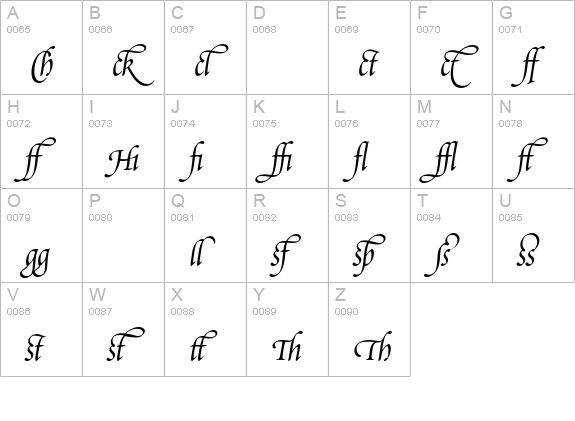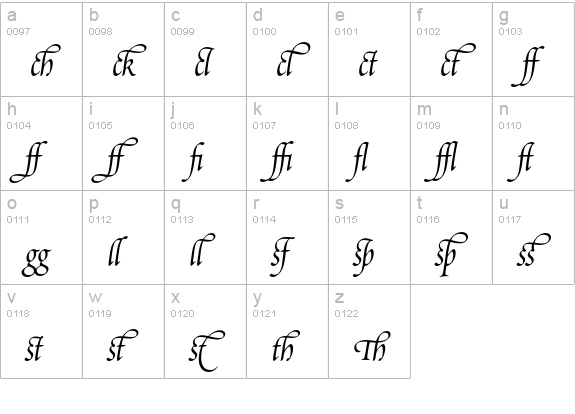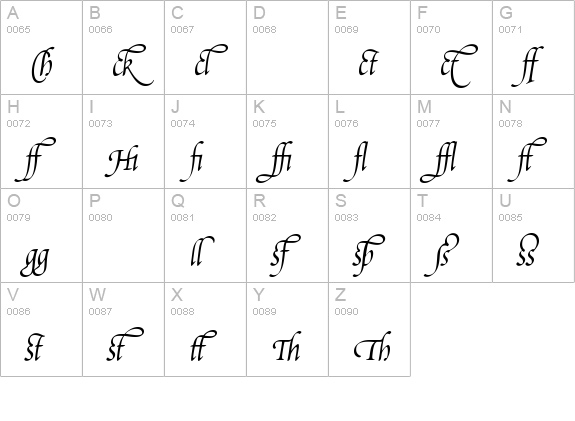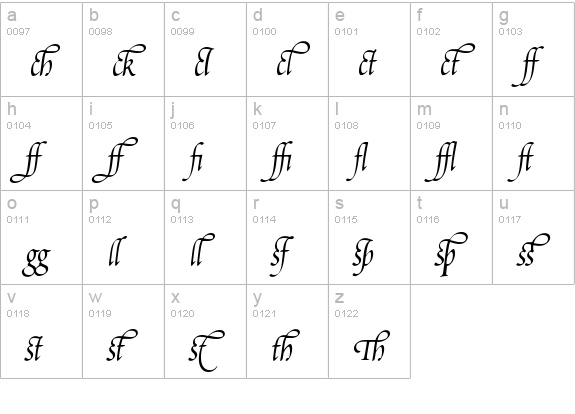
Poetica Supp Ligatures Font Details
Poetica Supp Ligatures font is a stunning display font that exudes elegance and sophistication. With its intricate ligatures and delicate curves, this font adds a touch of artistry to any design project. The flowing lines and unique flourishes of Poetica Supp Ligatures make it a perfect choice for wedding invitations, branding, and editorial designs. What sets Poetica Supp Ligatures font apart is its seamless blending of traditional calligraphy with a modern twist. The elaborate ligatures create a harmonious flow of letters, giving your text a graceful and refined appearance. Whether used for headlines or body text, Poetica Supp Ligatures adds a touch of luxury to any project. Best of all, Poetica Supp Ligatures font is freely available to download at FontsMarket.com. This means you can easily access this exquisite font and elevate your designs with its beauty and charm. Embrace the timeless elegance of Poetica Supp Ligatures font and make your projects stand out with its unique flair.